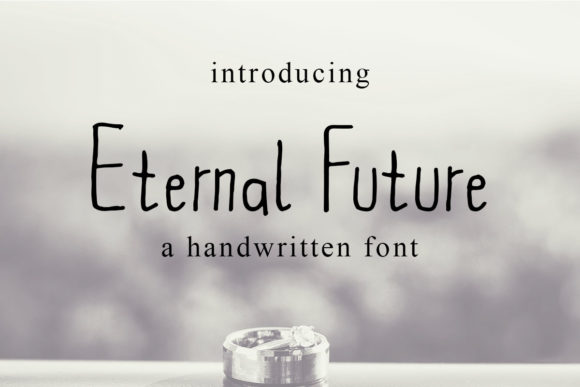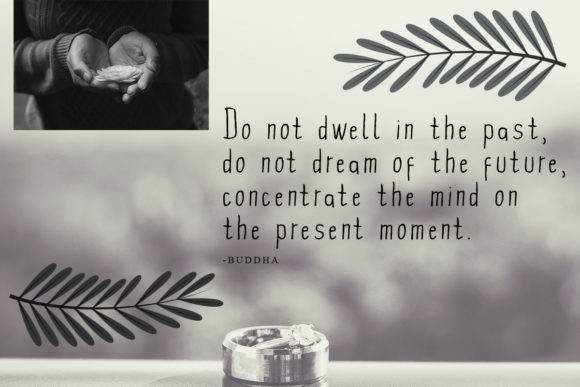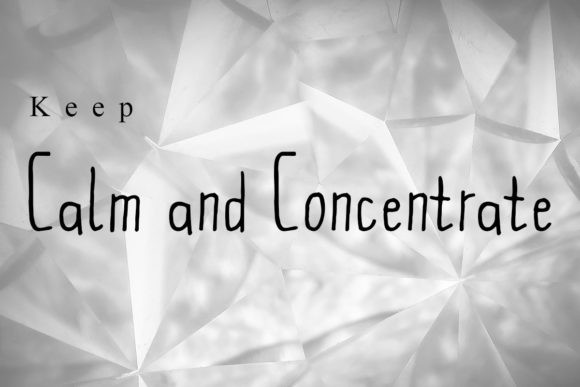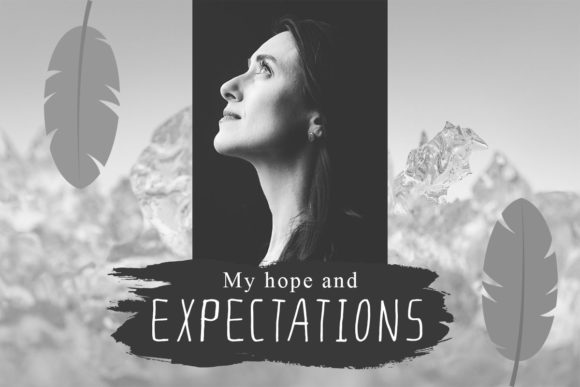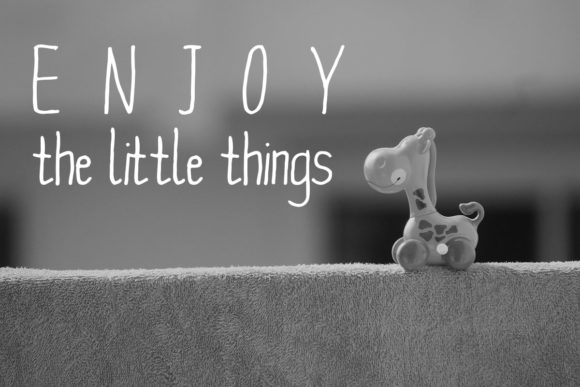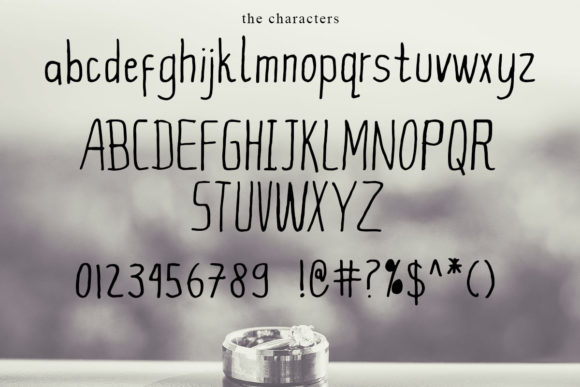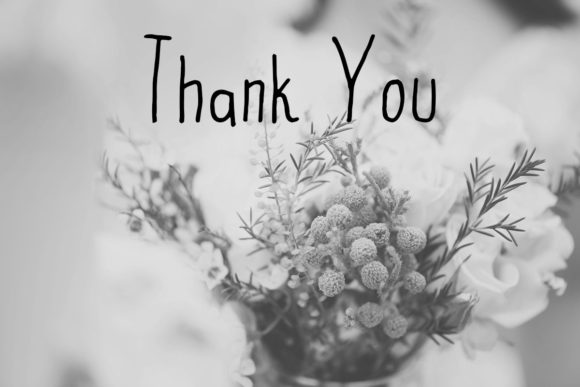
Eternal Future Font
About Eternal Future Font
Eternal Future is a cool and weird handwritten font with a unique flavour. It will turn any crafting idea into a true standout!